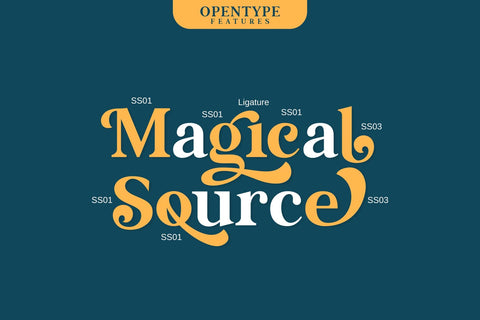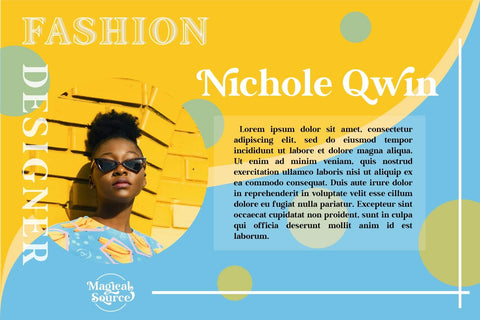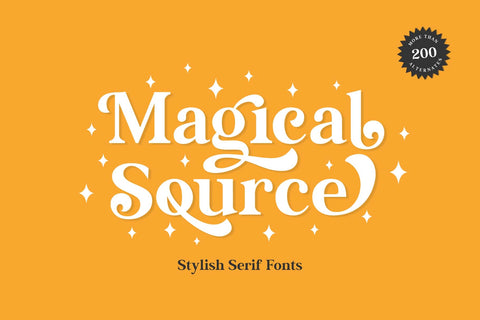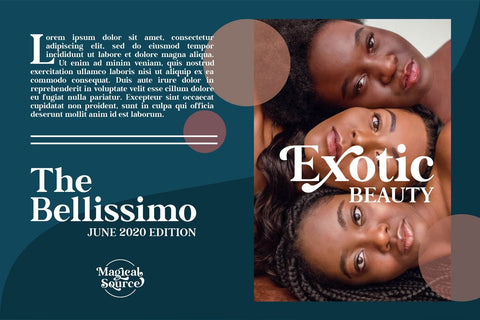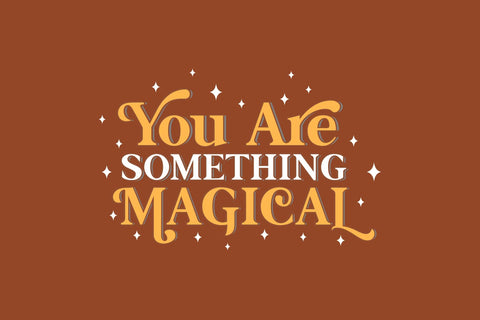
Magical Source - Stylish serif font
Introducing Magical Source is a stylish serif font, every character uppercase and lowercase have alternates font. This font is equipped with more than 200 alternative fonts so you can mix and match every alternate based on your taste. This font still outstanding look, although you don't switch on the alternate. Magical Source font is a versatile font, the font can covering to headlines, titles, logotype, branding, pull quotes & monograms, and etc.